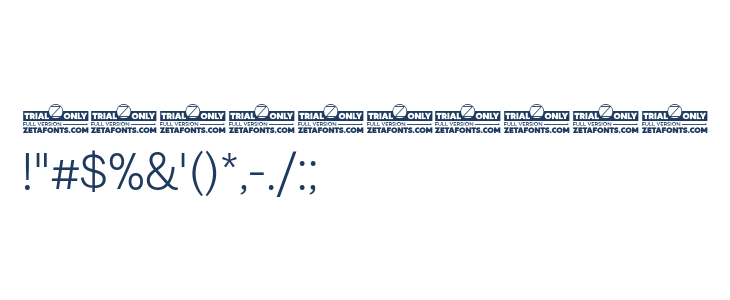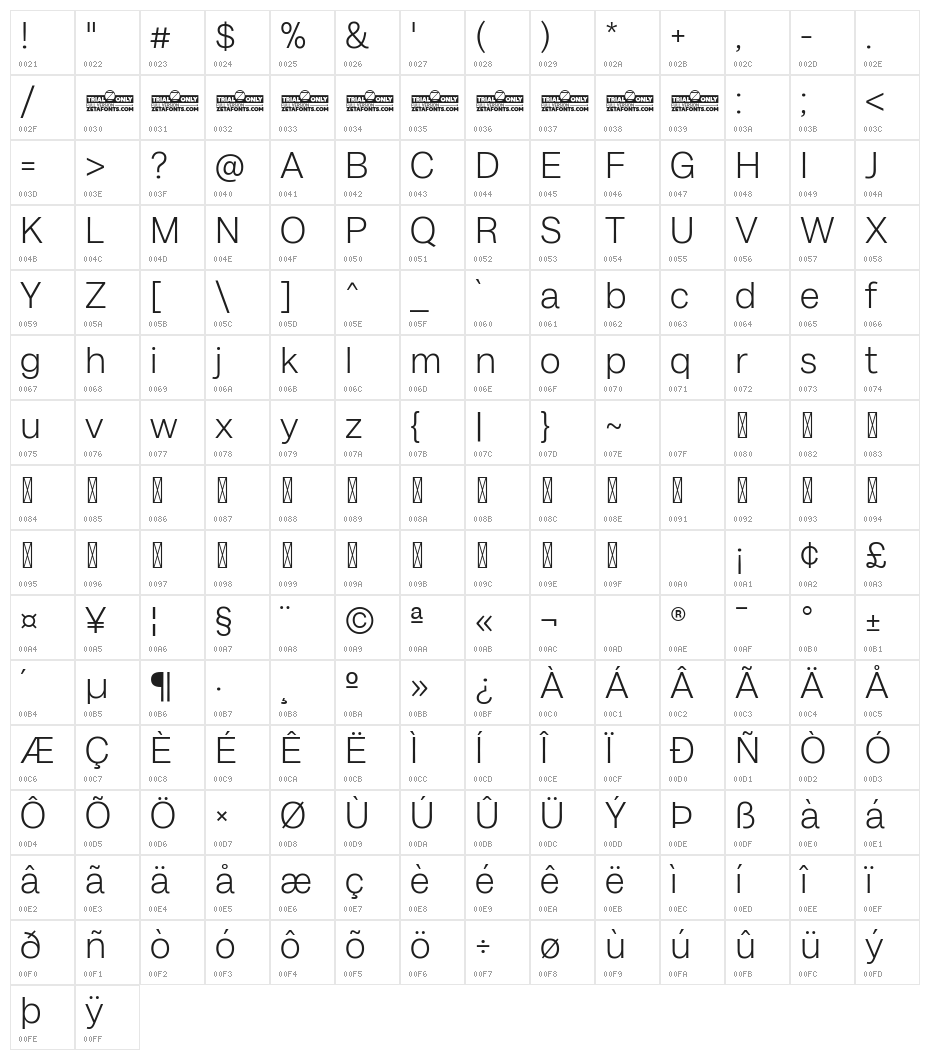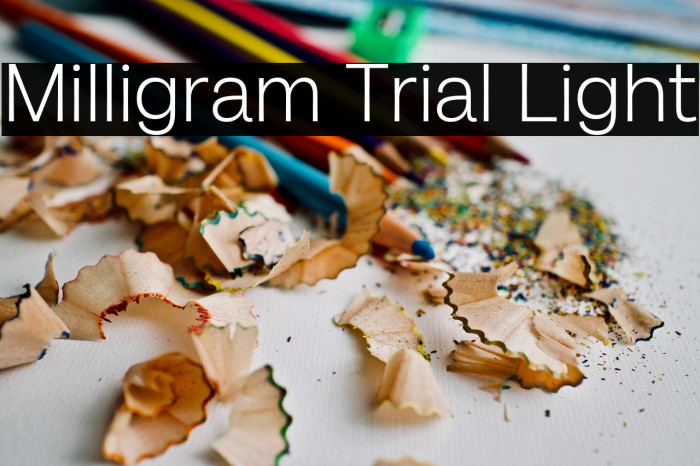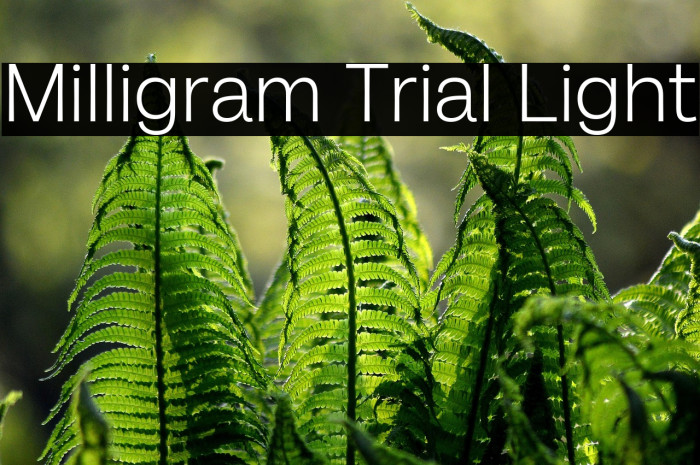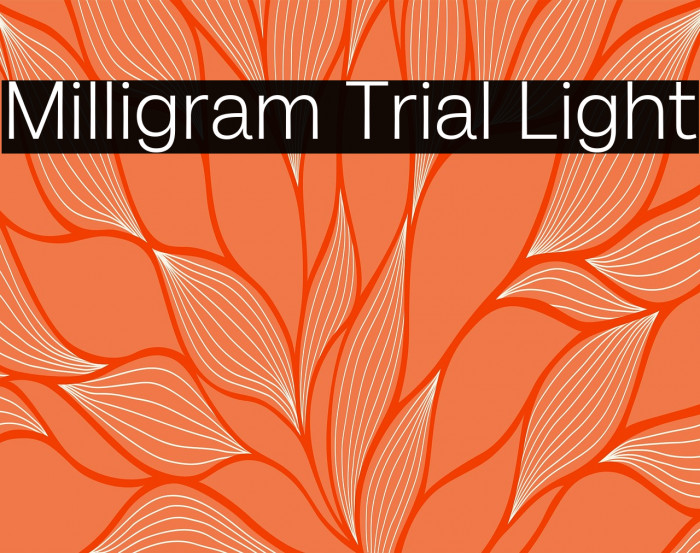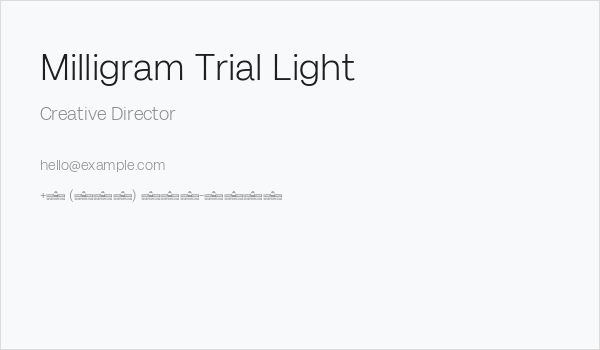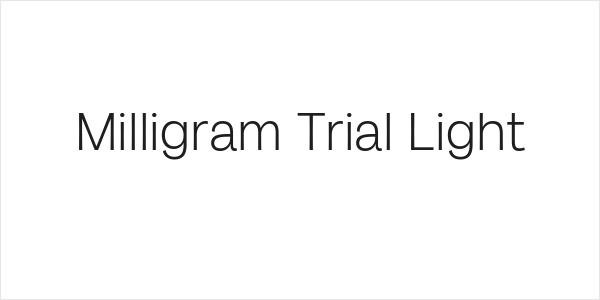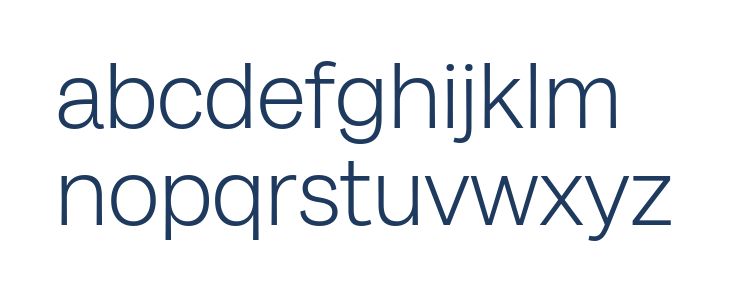
Milligram Trial Light Font
Milligram Trial Light Description
This font presents a clean and modern aesthetic with a minimalist approach. The characters are evenly spaced, contributing to a balanced and harmonious appearance. The design is sleek and straightforward, with a focus on readability and simplicity. The strokes are consistent in weight, providing a uniform look across all characters. This font is versatile, making it suitable for a variety of applications where clarity and modernity are desired.
| Proposed Projects | Ideal for digital interfaces, corporate branding, minimalist posters, and modern web design. |